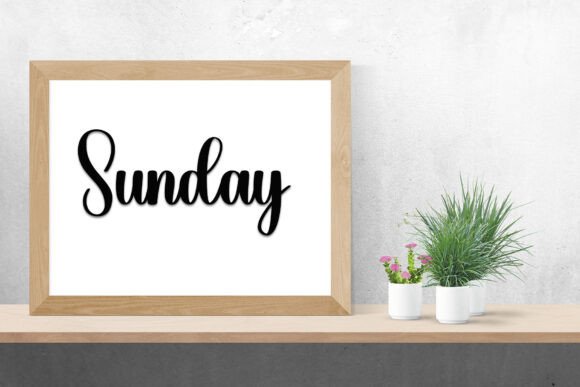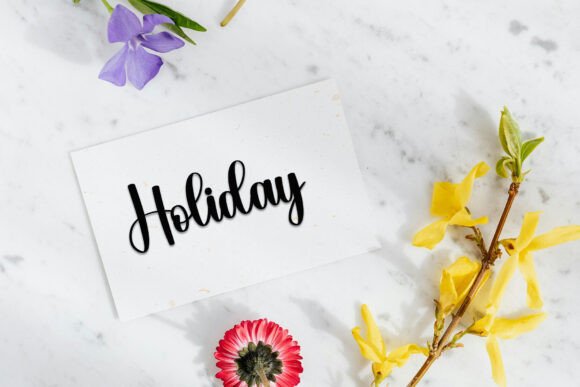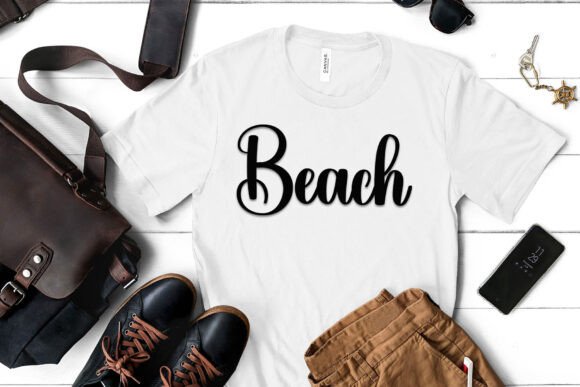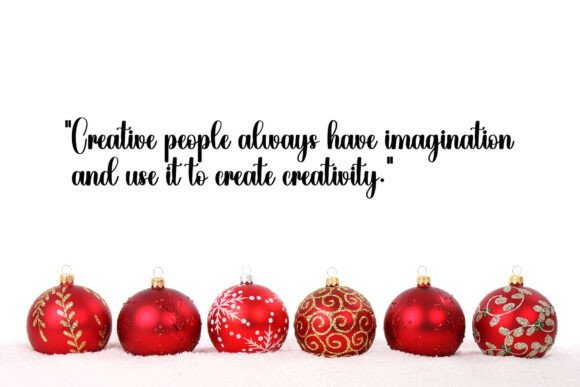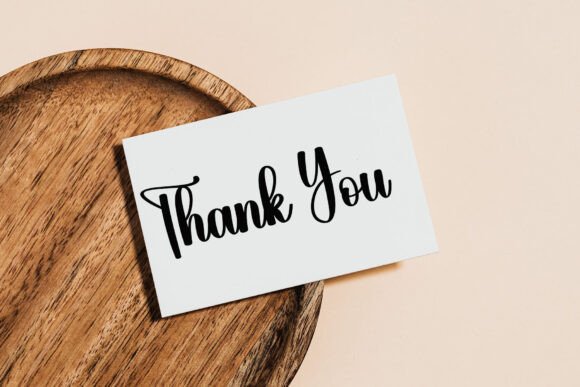
Introduction to Daily Coffee Font
Have you ever found yourself sipping on a freshly brewed cup of coffee, feeling inspired and ready to tackle your next creative project? That’s exactly what happens when you’re working with the perfect design resource. For many designers, the right font can make all the difference in elevating their work to the next level.
Enter the Daily Coffee Font, a high-quality, handwritten font that exudes a contemporary atmosphere and impeccable form. Inspired by timeless classic calligraphy, this font is sure to add a touch of elegance and class to any design project. Whether you’re working on a free download or a paid project, the Daily Coffee Font is a valuable addition to your design arsenal.
With its versatile and sophisticated style, the Daily Coffee Font is perfect for designers who want to add a personal touch to their creative projects. Plus, with a transparent background, you can easily combine it with other fonts and elements to create a unique look that’s all your own.
Key Features of Daily Coffee Font
- High-quality design resource for creative projects, ideal for use in branding, logos, and advertisements.
- Comes with a transparent background, allowing for easy customization and integration into various design elements.
- Designed with a modern and sleek aesthetic, making it perfect for use in digital and print media.
- Unique and stylish design makes it stand out from other fonts, perfect for designers looking to add a touch of sophistication to their creative project.
Honest Review: Daily Coffee Font
I recently came across the Daily Coffee Font and I must say, it’s been a great addition to my design resource collection. This free download has exceeded my expectations in many ways.
- The high-quality design makes it perfect for creative projects that require a professional touch.
- The transparent background is a nice feature, allowing for seamless integration with any design element.
- The font’s clean and modern look is sure to elevate any design project.
I’ve been using the Daily Coffee Font for a few weeks now, and I’ve been impressed with its versatility and readability.
Any limitations ⚠️
- The font only comes in a few weights, which might limit its use in complex designs.
- The character set is not as extensive as some other fonts I’ve worked with.
Overall, I’m very happy with the Daily Coffee Font and would recommend it to anyone looking for a high-quality, free font for their creative project.
Designing with Daily Coffee Font
Getting the Most Out of Daily Coffee Font
To get the most out of the Daily Coffee Font, use it with a transparent background to create a clean and modern design. This font is also great for creating social media graphics, posters, and other marketing materials.
Open Sans is a popular and highly versatile font that’s suitable for a wide range of design projects. Its clean and modern design makes it perfect for creative projects that require a high level of professionalism. As a free download, Open Sans is an excellent choice for designers who need a reliable and high-quality design resource. Compared to Daily Coffee Font, Open Sans is more comprehensive in terms of its usage and offers a wider range of font styles.
Is the Daily Coffee Font available with a transparent background?
Yes, the Daily Coffee Font is available with a transparent background, making it perfect for use in graphic design and other creative projects where a transparent font is required. Simply download the font file and use it as you would any other font.